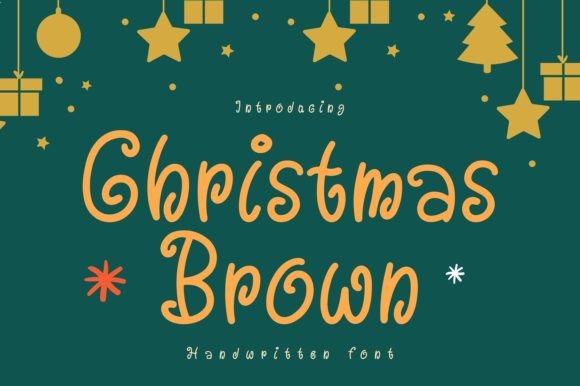
Get ready to add a touch of festive cheer to your designs with the Christmas Brown Font, a charming handwritten typeface that exudes playfulness and authenticity. This adorable script font is crafted with light and airy characters, making it a versatile choice for a multitude of creative endeavors.
Picture this: your designs adorned with the whimsical charm of Christmas Brown. Blog posts come alive with a touch of handwritten elegance, while logos and branding exude a unique and memorable personality. Invitations and greeting cards take on a festive flair, spreading holiday cheer with every stroke.
Unleash your creativity with Christmas Brown, the perfect font for planners and photo albums. Its playful nature adds a touch of magic to your memories, making them even more precious. Decorate your designs with a festive touch, and watch as they transform into heartwarming expressions of creativity.